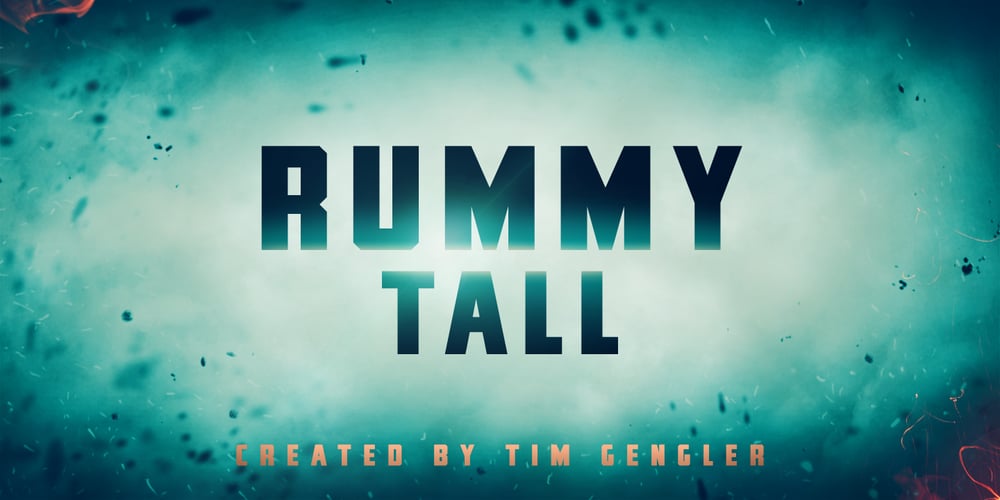
Rummy Tall Font Family was designed by Tim Gengler and published by Bunny Dojo. Rummy Tall contains 5 styles and family package options. Rummy, the stout, scrappy font inspired by sports branding and 1940s film, has grown up and is ready to take on new responsibilities. The result: Rummy Tall. Still powerful, precise, and packed with personality, Rummy Tall’s added height brings with it even more versatile charm. Track Rummy Tall tightly for a sturdy foundation, or give Rummy Tall some breathing room for an unexpected air of nobility. Reach new heights!